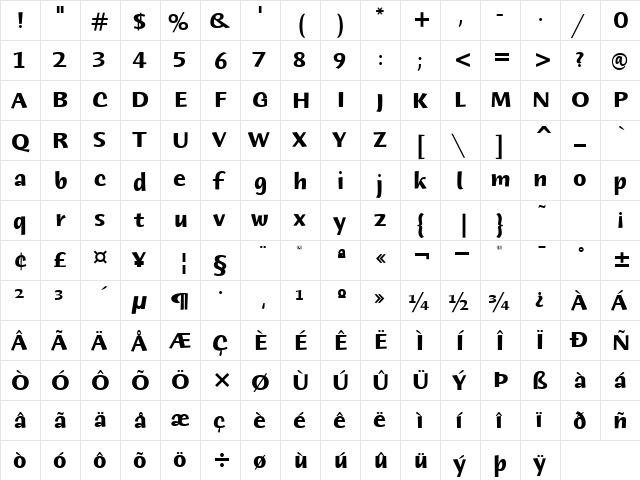
HumanaSansITC Bold
Design Context for HumanaSansITC Typeface
HumanaSansITC is a composed and adaptable typeface that performs quietly and consistently across a wide range of design contexts. The heavy weight commands attention and anchors typographic hierarchies.